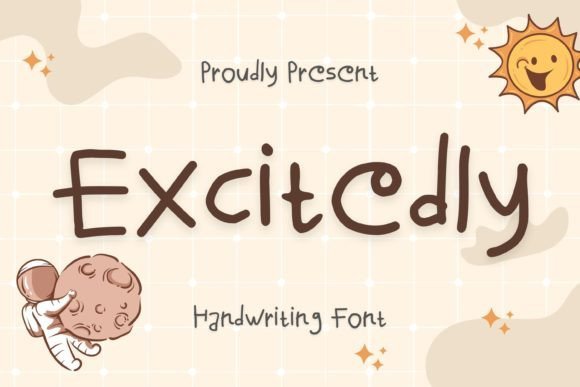
Unlocking the Joy of Design with Excitedly Font
Do you remember that moment when you stumbled upon the perfect font, and suddenly, your design ideas came alive? The excitement, the thrill, the ‘aha!’ moment – it’s a feeling that’s hard to replicate, but with the right tool, you can relive it time and time again. For designers seeking to infuse their work with a playful touch, look no further than Excitedly Font – a charming, handwritten font that’s guaranteed to bring a smile to your face.
As a versatile and unique font, Excitedly Font is the perfect companion for designers who want to add a personal touch to their projects. Its natural, friendly style makes it an excellent choice for a wide range of designs, from children’s books to social media graphics. With Excitedly Font, the only limit is your imagination – and that’s what makes it so valuable to designers.
Key Features of Excitedly Font
- Font Family: Excitedly Font is a sans-serif font family designed for digital use.
- Unique Characteristics: Features a unique, energetic feel with rounded edges and a slightly condensed width, making it ideal for headlines and titles.
Excitedly Font Review
I’ve been experimenting with the “Excitedly Font” for a while now, and I must say it’s a real showstopper ✨. The font’s playful, energetic vibe is perfect for projects that require a sense of excitement and dynamism. The rounded edges and open curves give it a friendly, approachable feel that’s hard to resist.
- The font’s versatility is one of its strongest points ✨. It works well in a variety of contexts, from headings to body text, and even as a display font for emphasis.
- The font’s legibility is excellent, even at smaller font sizes ✨. This makes it a great choice for digital projects where text needs to be easily readable.
However, there are some limitations to consider ⚠️. The font’s rounded edges can sometimes make it feel a bit too playful or childish, which might not be suitable for all projects. Additionally, the font’s open curves can make it difficult to read at very small font sizes.
Overall, I’d say the “Excitedly Font” is a solid choice for designers looking for a fun, energetic font to add some excitement to their projects ✨. While it may not be the best fit for every project, it’s definitely worth considering for those that require a playful, dynamic vibe.
Tips for Getting the Most Out of Excitedly Font
To get the most out of Excitedly Font, use it to add emphasis to headlines, titles, or other important text elements. This font is particularly effective for creating a playful or energetic atmosphere.
Some common use cases for Excitedly Font include:
- Blog post titles and headings
- Marketing materials and social media posts
- Infographics and presentations
Q: What is the recommended font size and line height for Excitedly Font?
For optimal readability, we recommend using a font size between 12 and 18 points, with a line height of at least 120-150% of the font size. This will ensure that your text is clear and easy to read, even at smaller sizes.